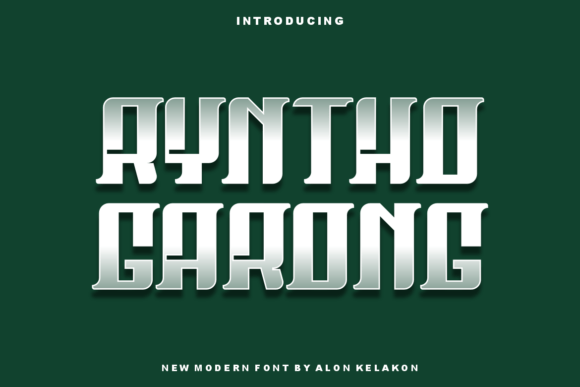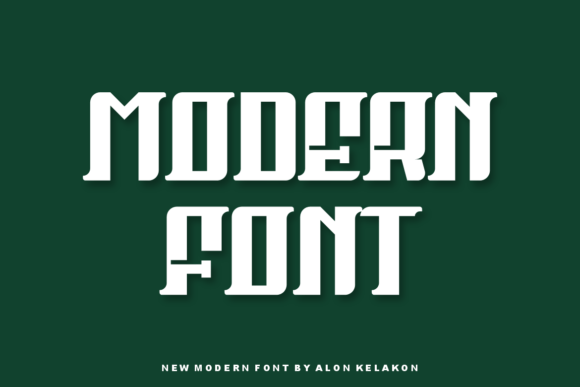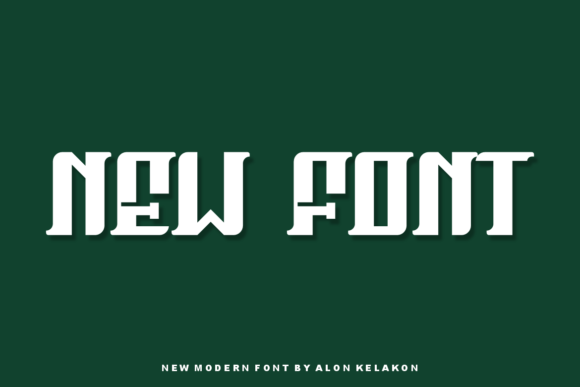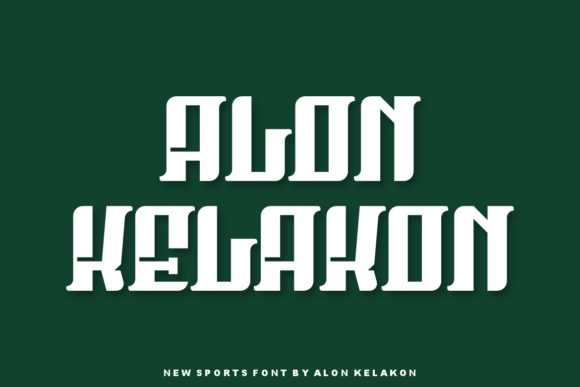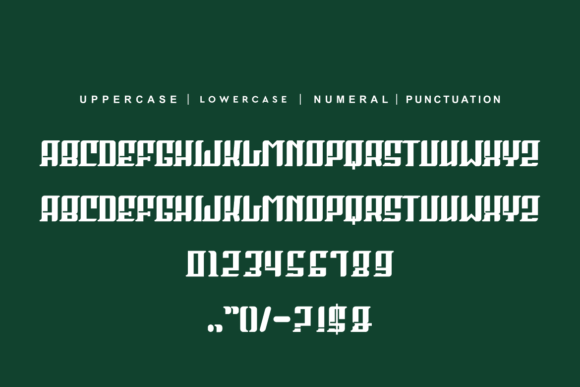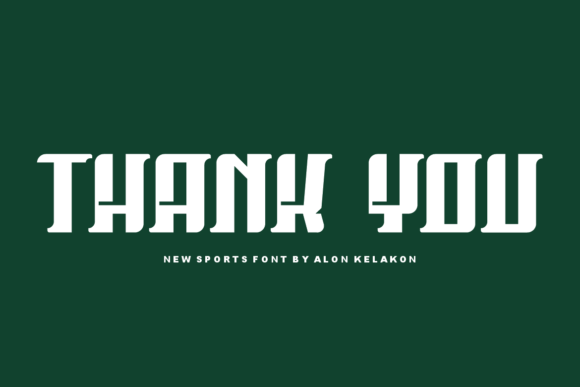
Ryntho Garong Font
RYNTHO GARONG FONT SPECIMEN
Ryntho Garong is a bold and unique slab serif font. It is ready to be used for your design like labeling, clothing, movie scenes, poster, movie title, gigs, album covers, logos, and much more.